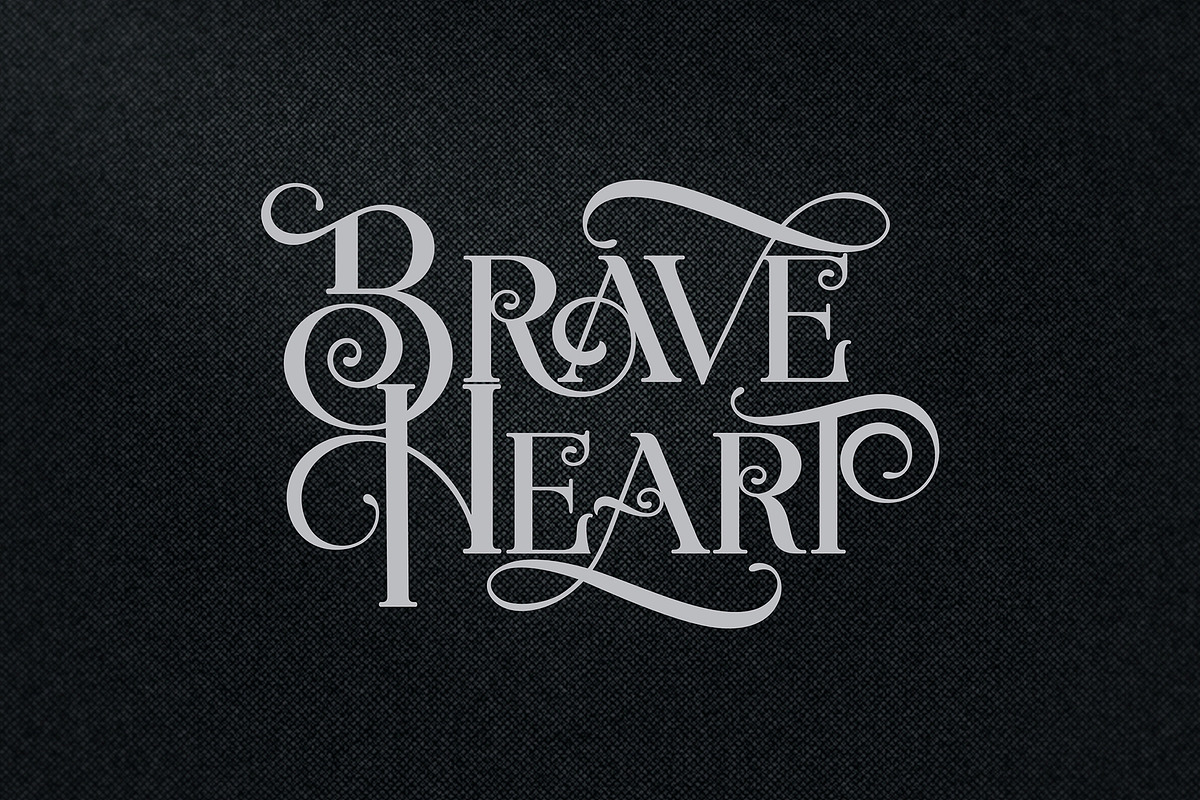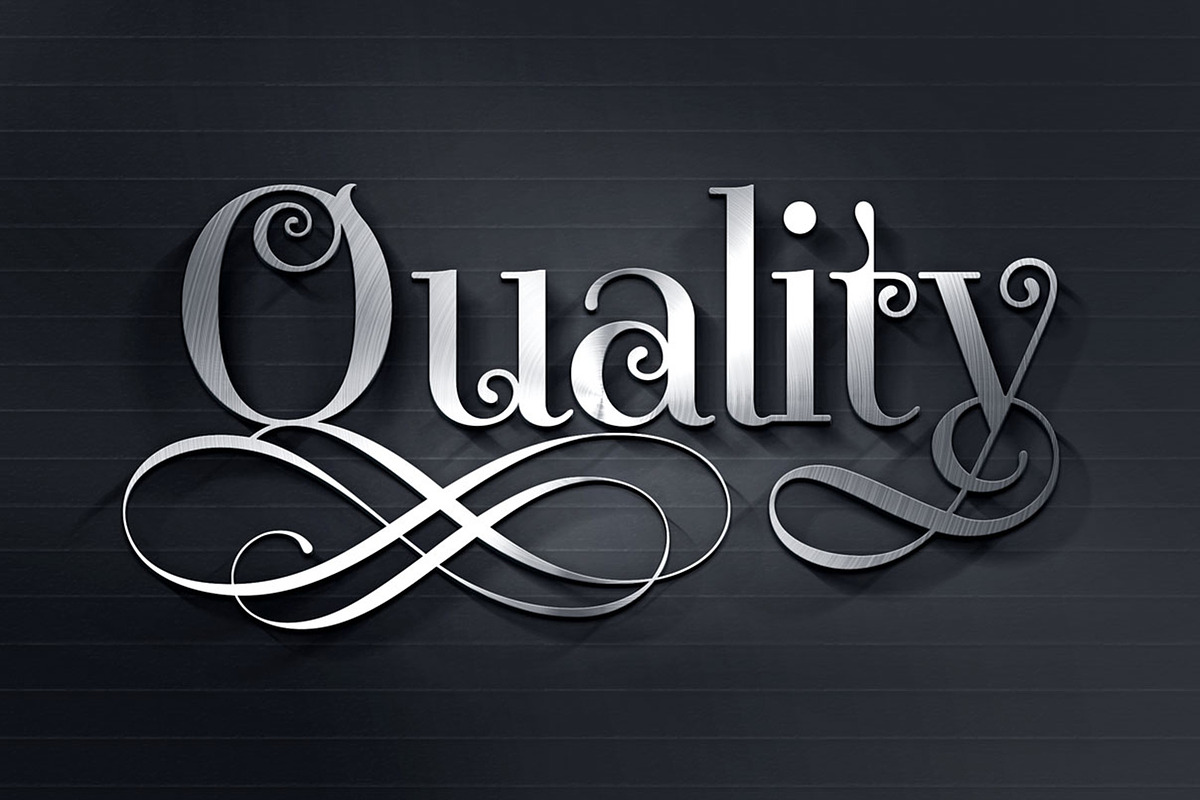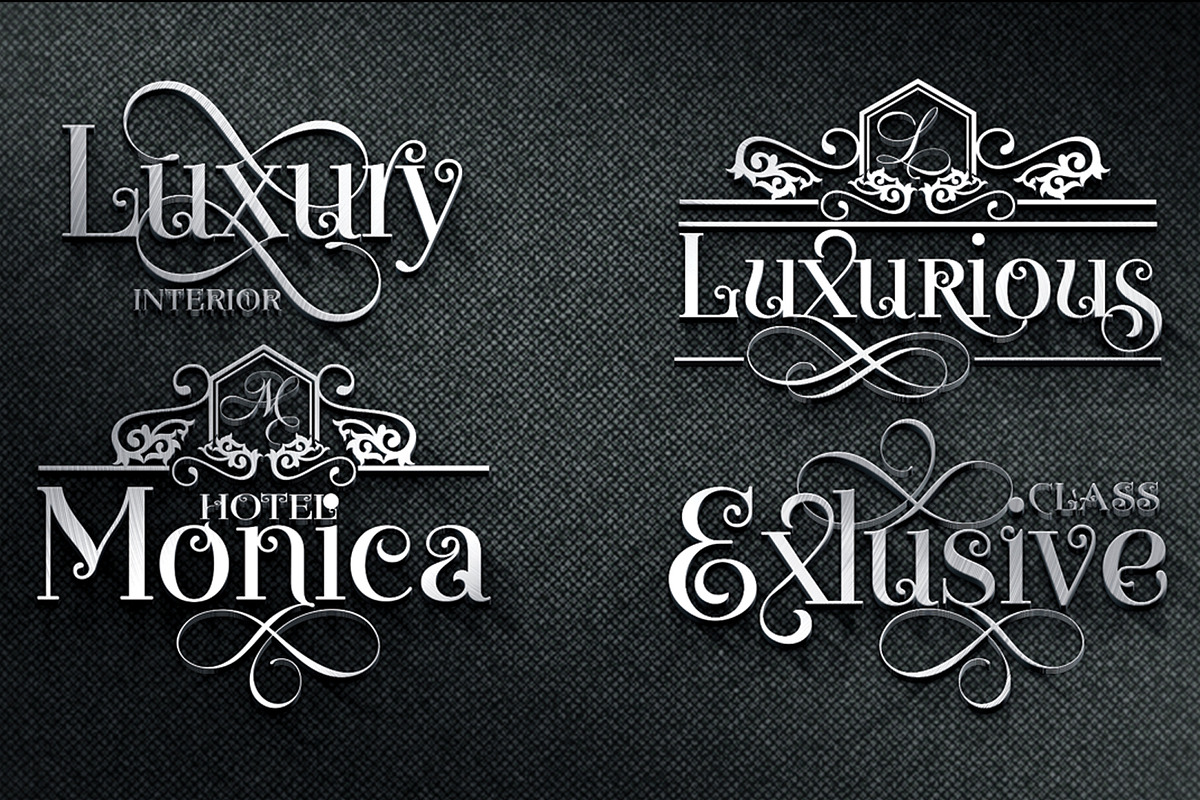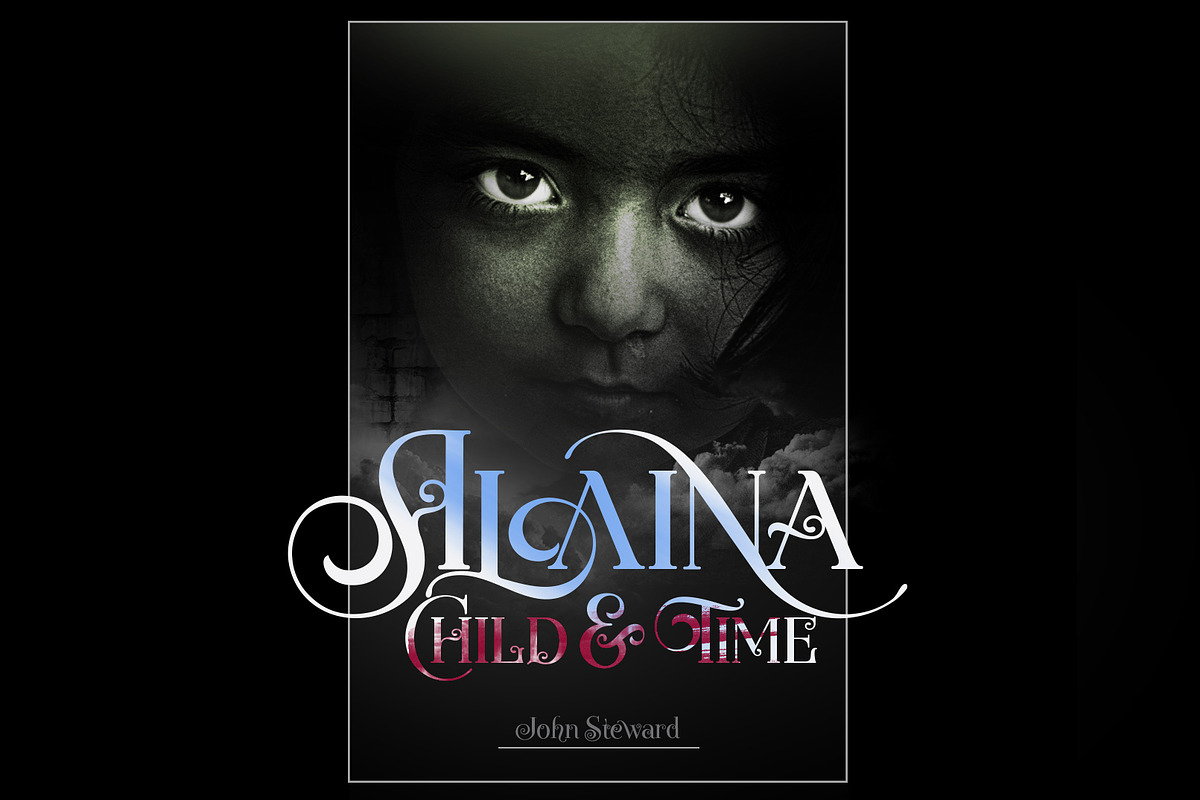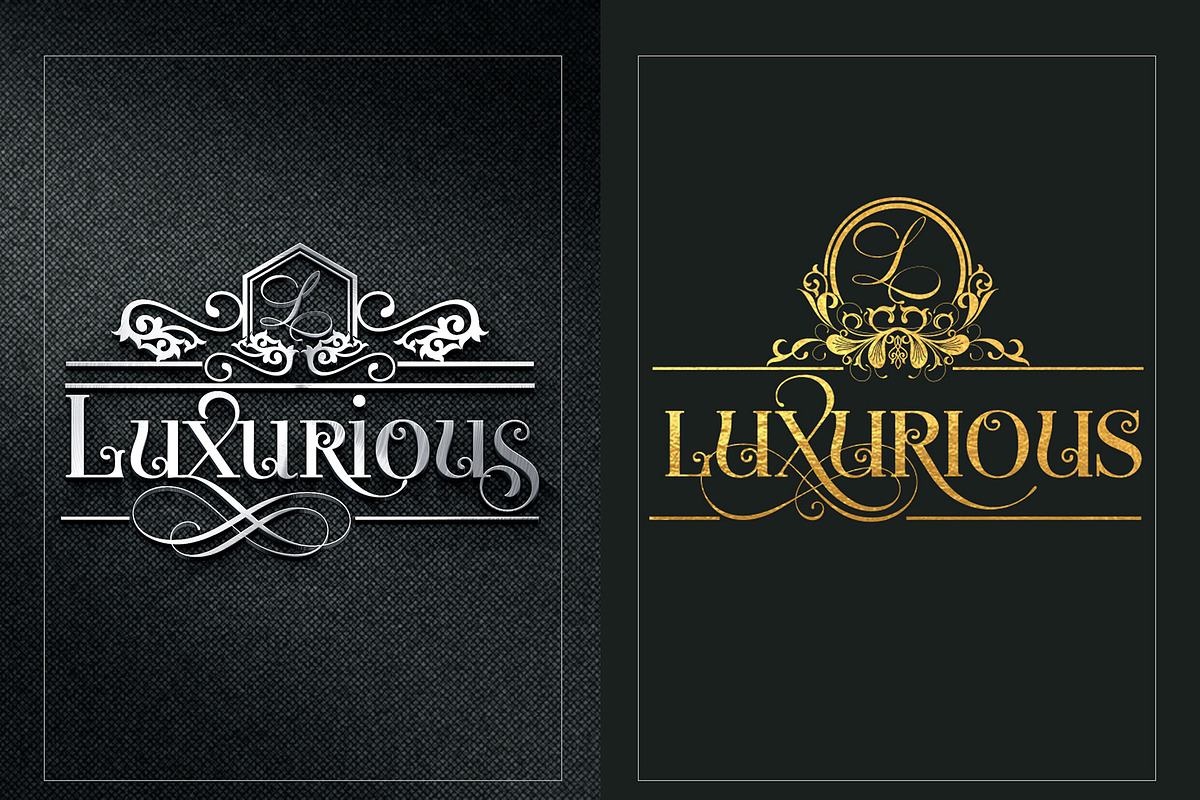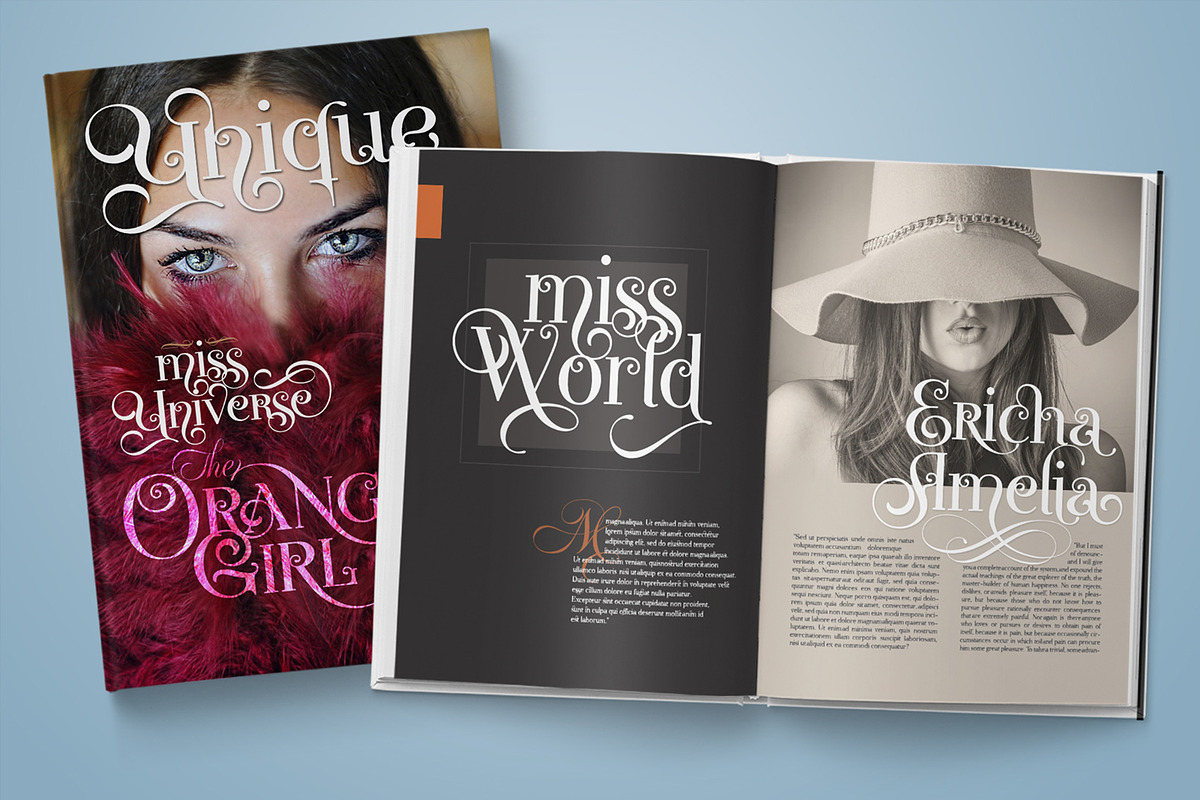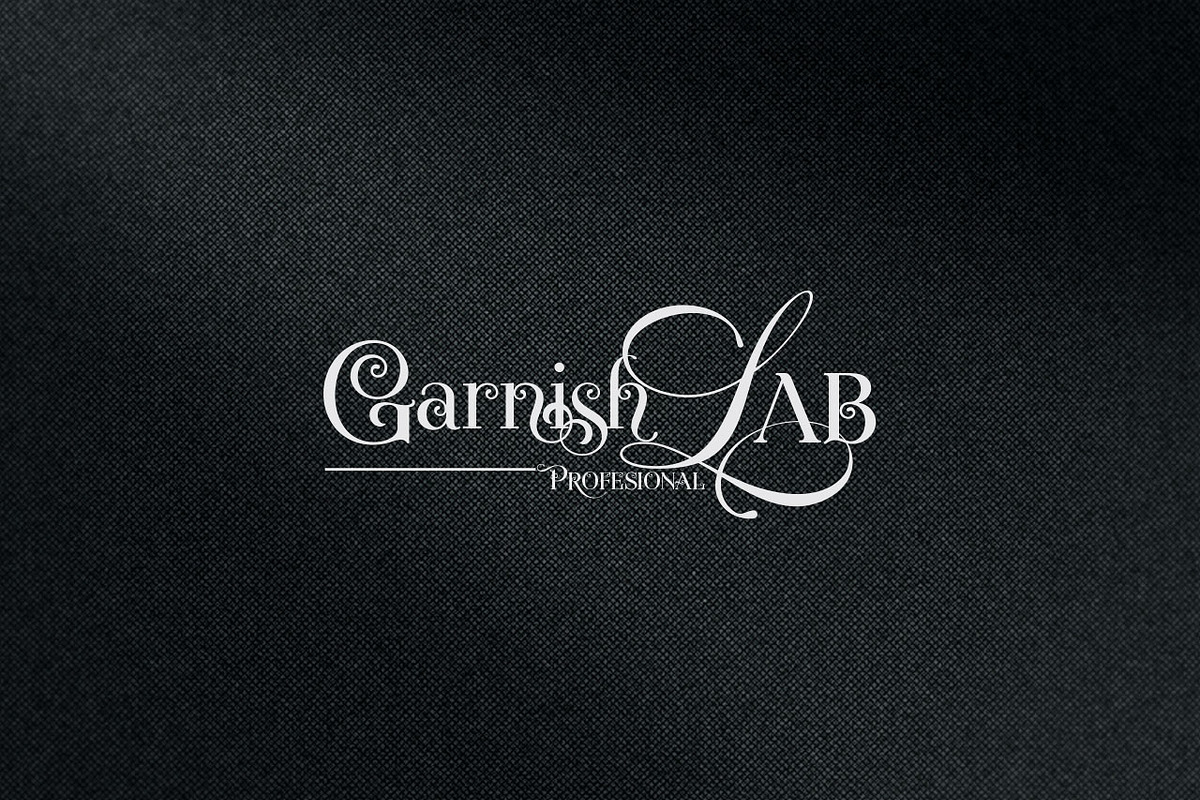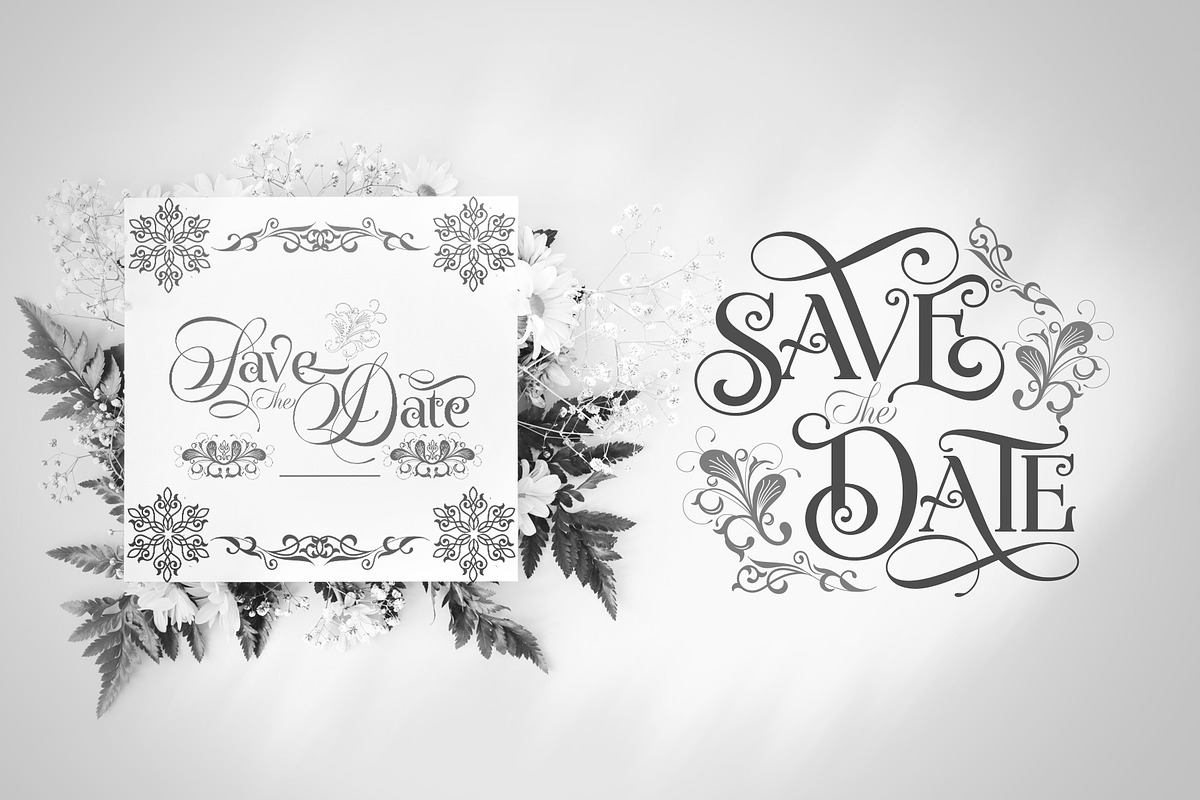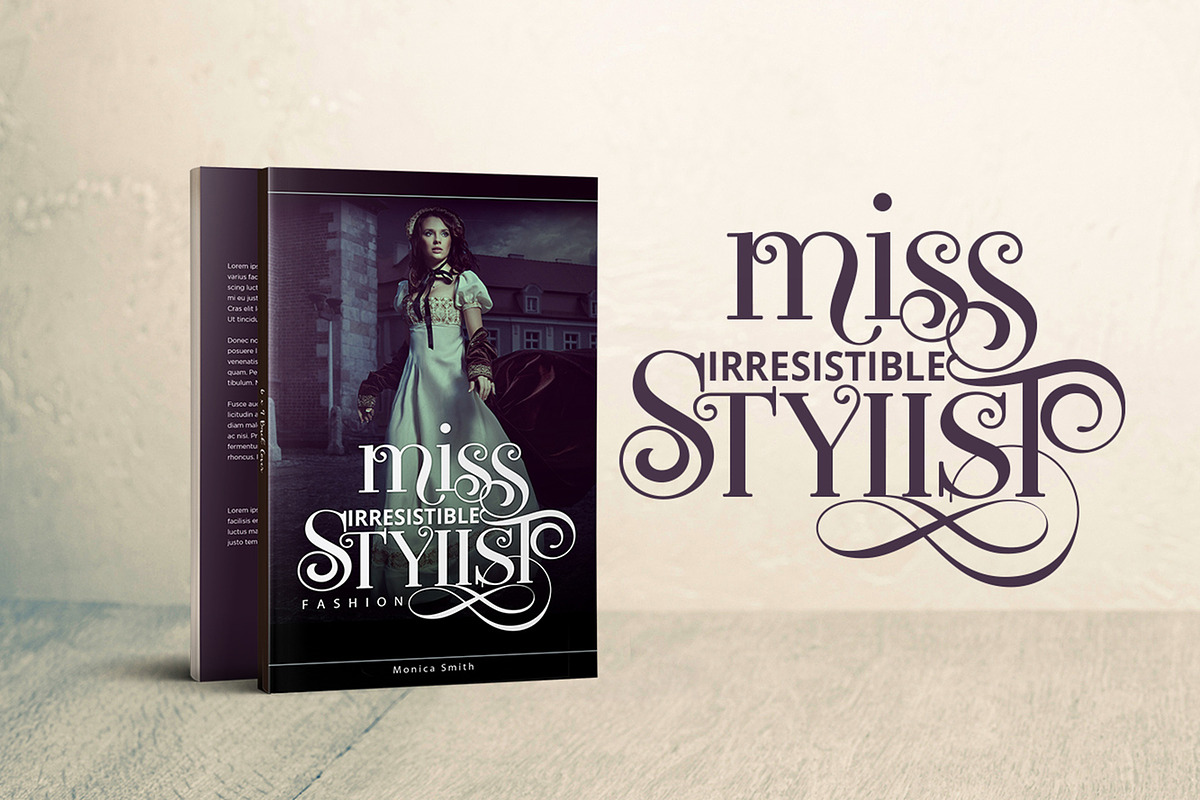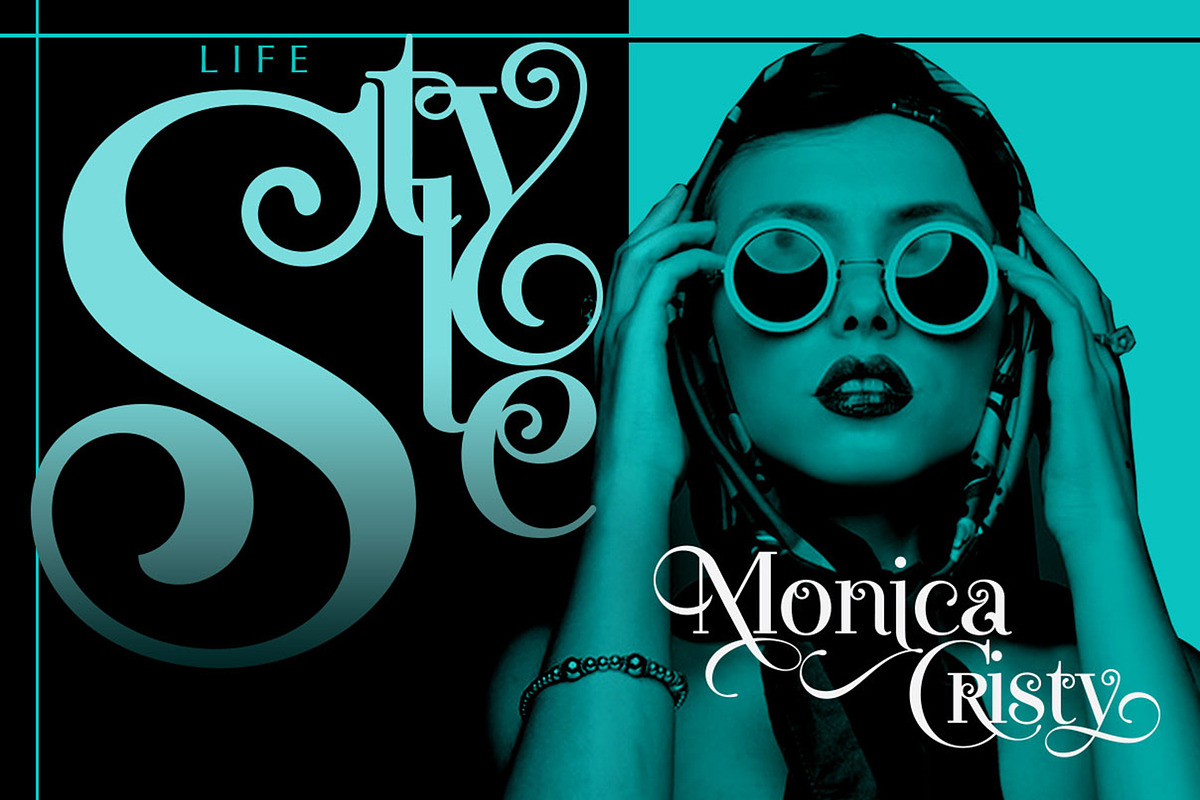
Novelia Pro
Hi all ,, Novelia returns for you (Novelia Pro) with latest version, Two different styles, Display & with vintage style, let us explore it .. !!
Novelia Pro is a multi purpose font and ready to make a statement by adding elegant and unique flair to your next design project. Novelia can be used for various purposes such as posters, logos, t-shirt, signage, businnes card, magazines, book cover, wedding invitation, greeting cards etc.
Novelia Pro allows you to create custom dynamic text. you can access by turning on; Stylistic Alternates, Swash, as well as ligatures in Photoshop, Adobe Illustrator, Adobe InDesign or through a panel of glyphs such as Adobe Illustrator, Photoshop CC, Let's switch from the reguler character into character alternative to get the text with the layout of your dreams.
Novelia Pro also includes glyphs, punctuation, numbers, and multilingual.
Features Basic Latin A-Z and a-z Numbers Symbols